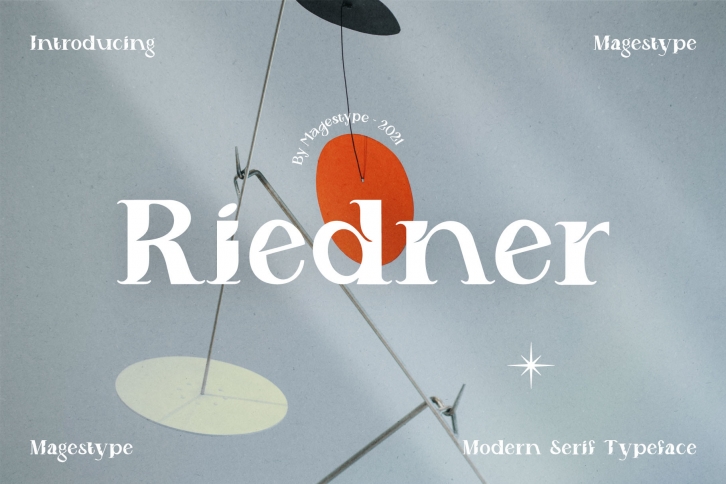
Riedner is a distinct and bold serif font. Whatever the topic, this font will be a wonderful asset to your font library, as it has the potential to enhance any creation.